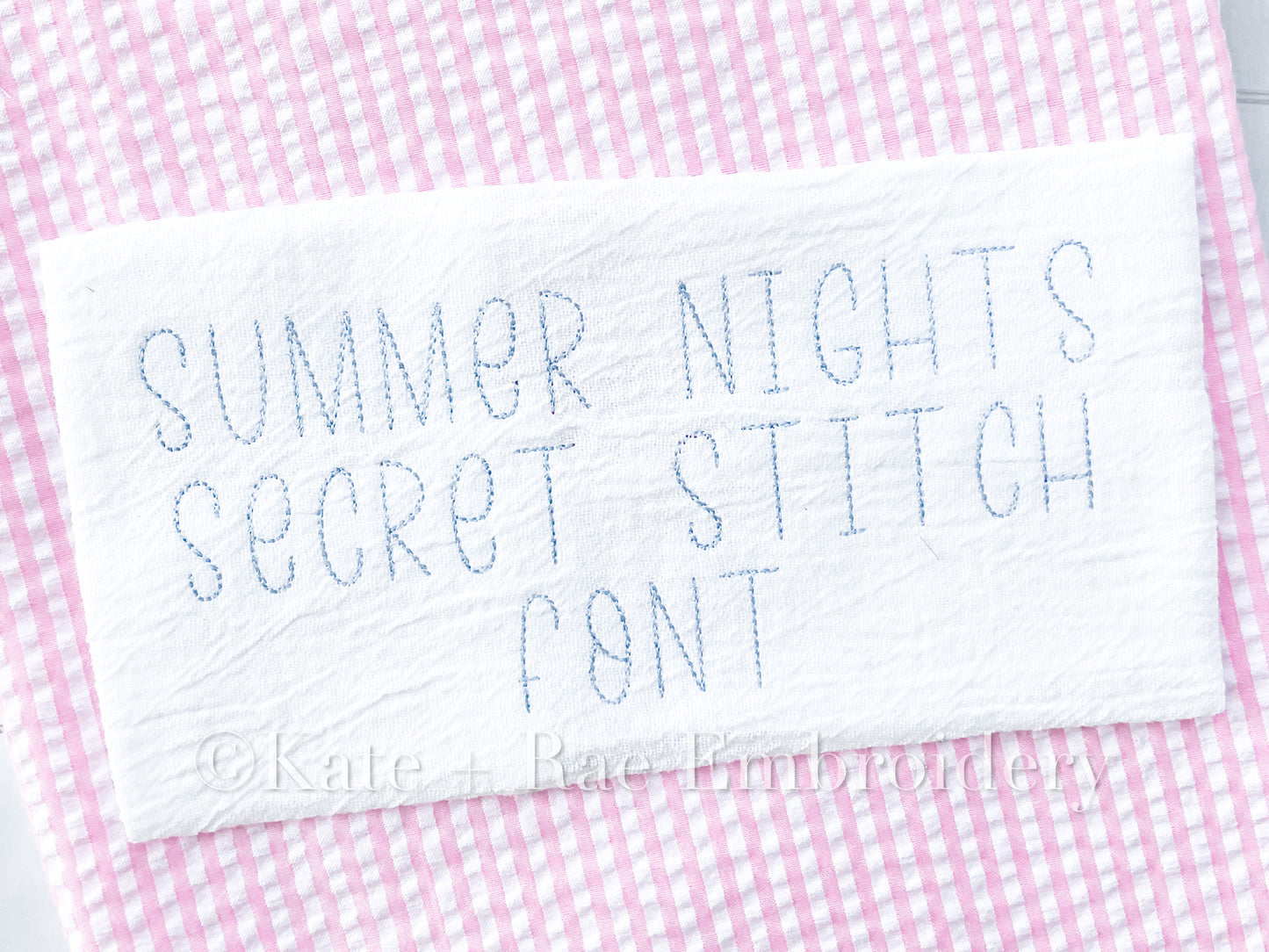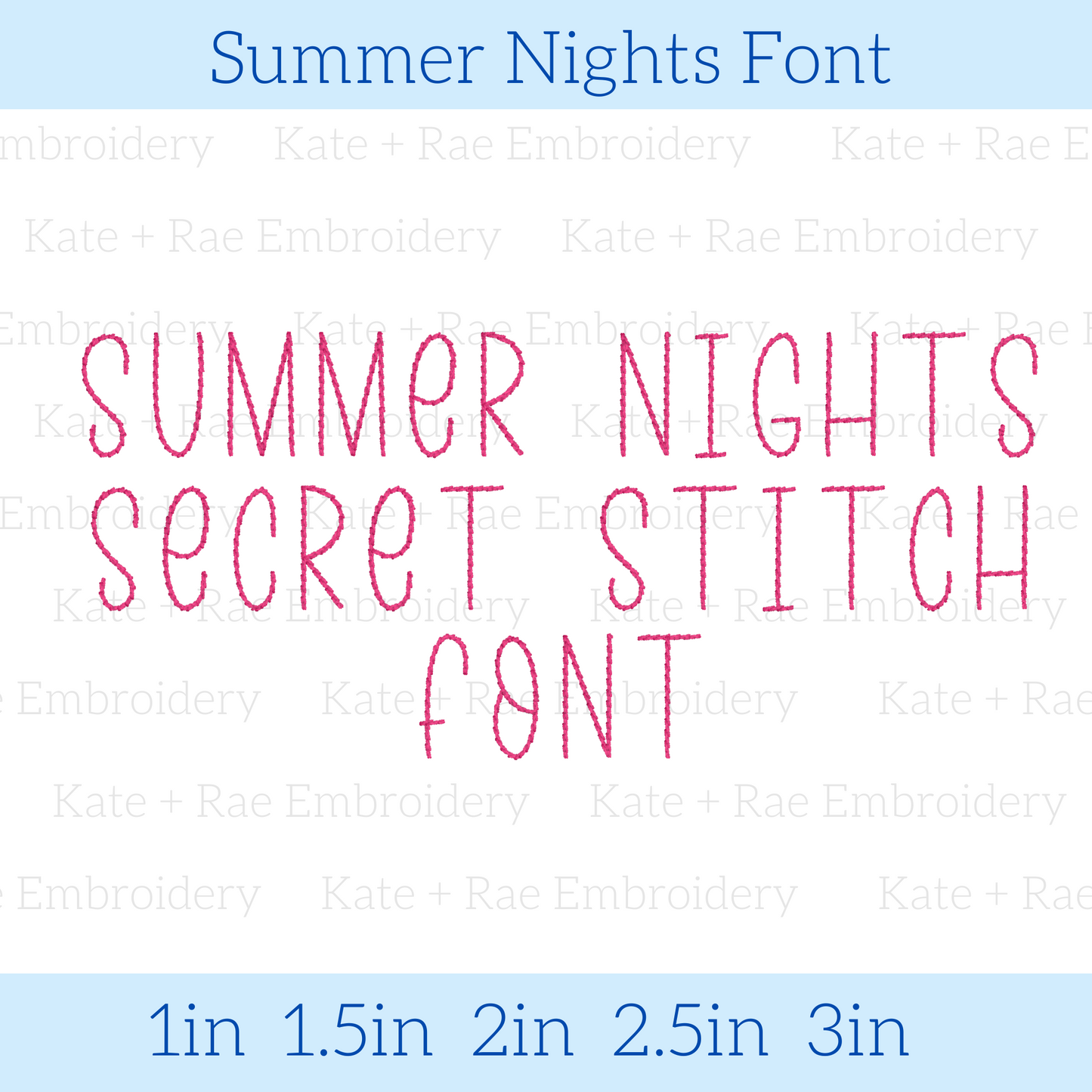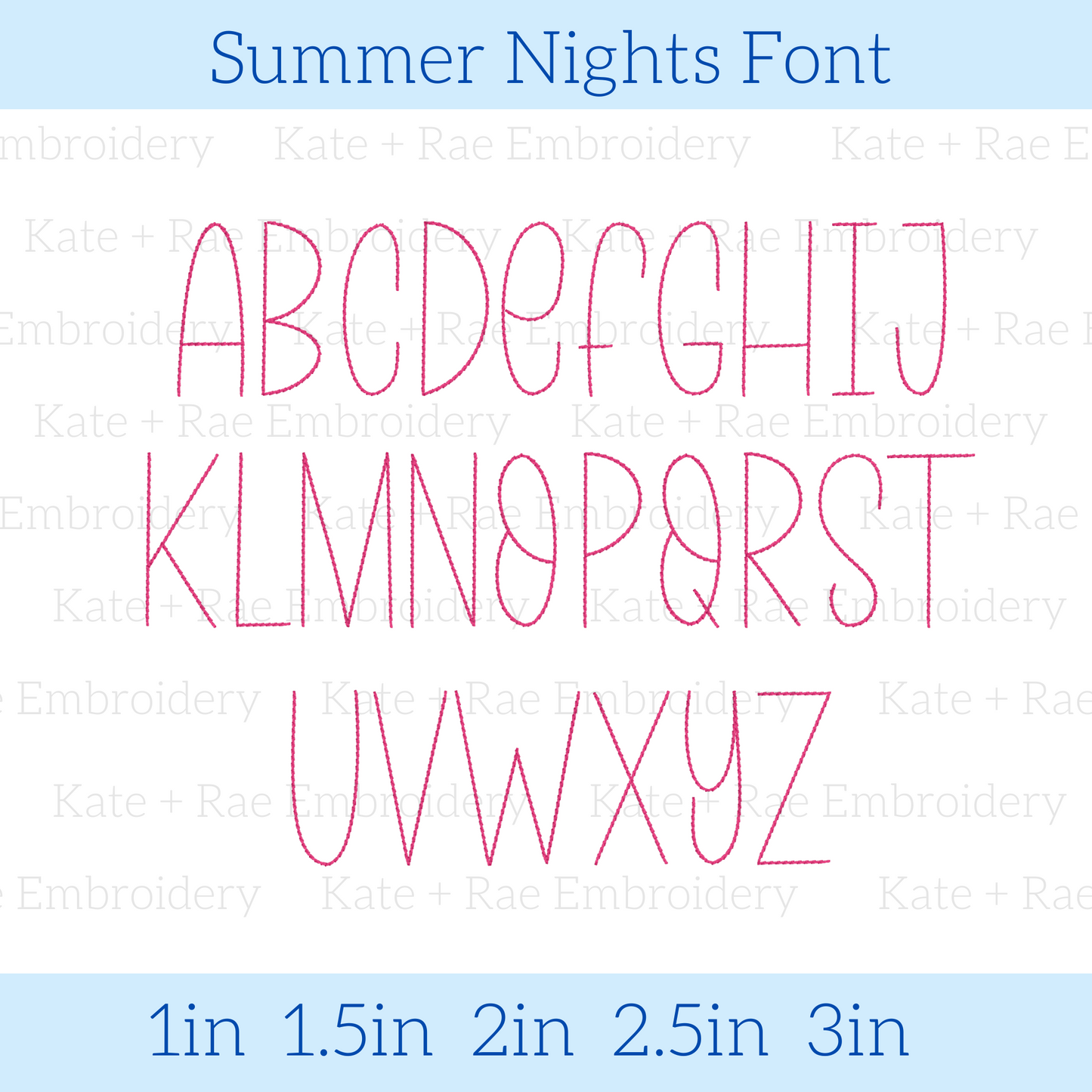
Summer Nights Secret Stitch Font
Summer Nights Secret Stitch Embroidery Font
I'm so excited to release our summer nights font with this unique stitch I have named "secret stitch". It's not a satin stitch, it's not a bean stitch. It's a happy medium between the both. Be one of the first embroiderers to offer the secret stitch to your customers.
I am the only person with a secret stitch font! I am so excited to offer this beautiful and fun stitch type to you all!